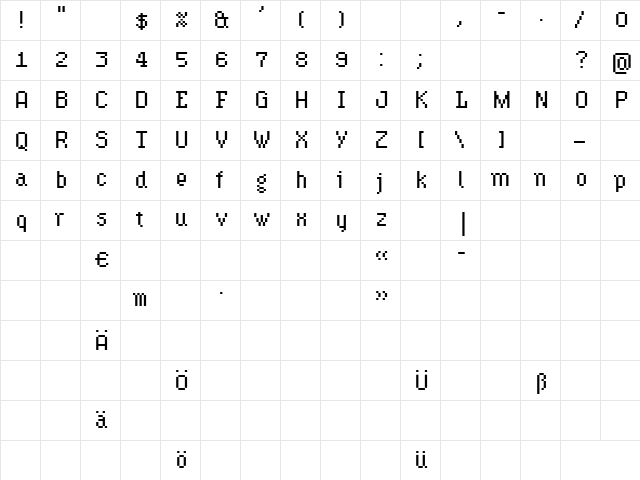
HydrophiliaIced Regular
Design Context for HydrophiliaIced Typeface
HydrophiliaIced takes a measured approach to typography — its balanced proportions and neutral character make it a reliable workhorse for both digital and print work.